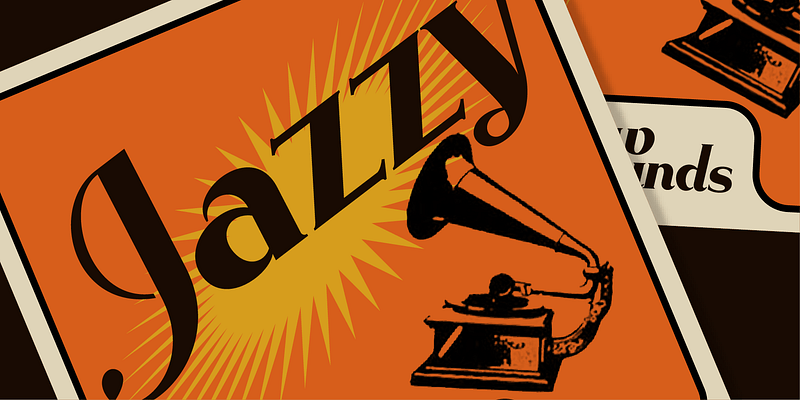
Rhythm Font Free Download
Rhythm Font Free Download is a dynamic, bold typeface with a modern, energetic style. Featuring smooth curves and strong lines, it creates a perfect balance between sophistication and playfulness, making it ideal for creative projects, posters, branding, and anything that requires a visually striking font.
Its versatile design works well for headlines, logos, event promotions, and social media graphics, offering high readability and a contemporary flair. Rhythm Font integrates seamlessly with design platforms like Adobe Illustrator, Photoshop, Figma, and Canva, giving you flexibility across both print and digital designs.